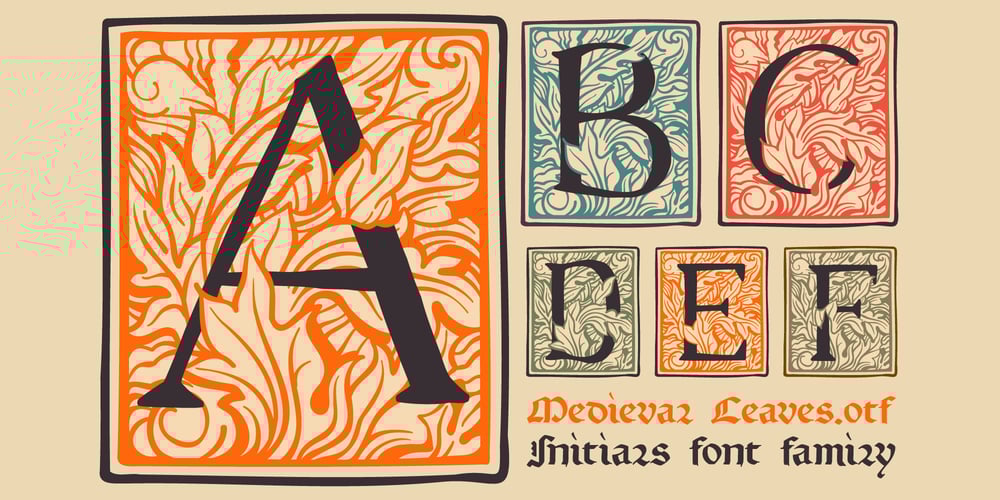
Medieval Leaves Font Family was designed by Roman Korolev and published by Kaer. Medieval Leaves contains 2 styles and family package options. Once I found a pretty H letter initial on an ancient book. The letter was illuminated by beautiful engraved leaves. Based on it, I designed A-Z and 0-9 sets and assembled Medieval Leaves font.Medieval Leaves font family has Regular and Colored styles. It’s all you need to precisely imitate medieval style text. Use this font as a decorative element at the beginning of a paragraph or section, other part of the paragraph should be in regular black letter font.You’ll get Drop Caps & Numbers set.—*You can use color fonts in PS CC 2017+, AI CC 2018+, ID CC 2019+, macOS 10.14 Mojave+ **Please note that the Canva & Corel doesn’t support color fonts!**Please download this test file with only A letter ( https://www.dropbox.com/s/03e7i78j4bz4mnm/MedievalLeaves-Test.otf?dl=0 ) to check your app & system.*—Please feel free to request any help you need: kaer.pro@gmail.comBest, Roman.